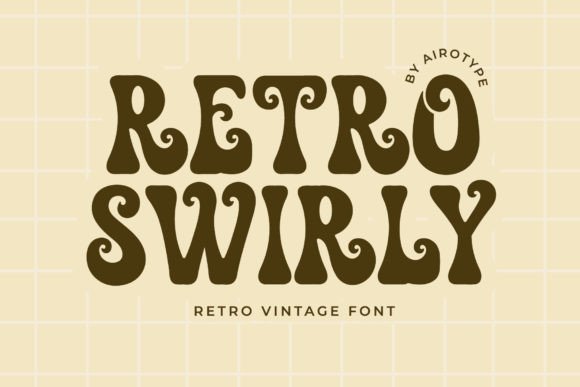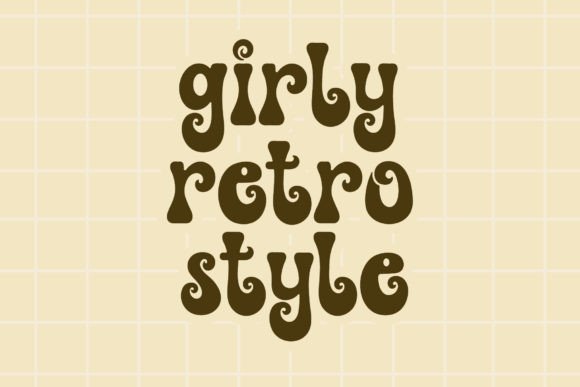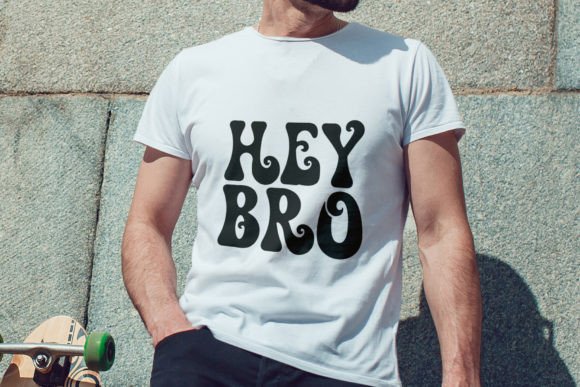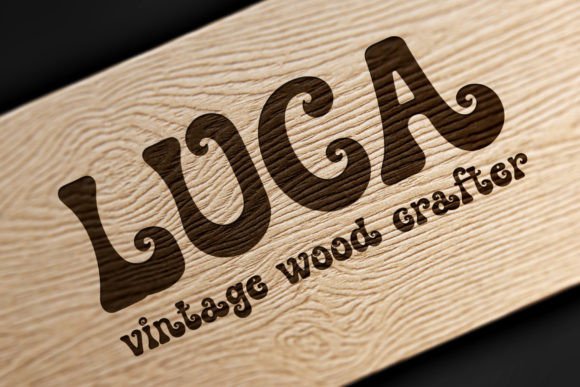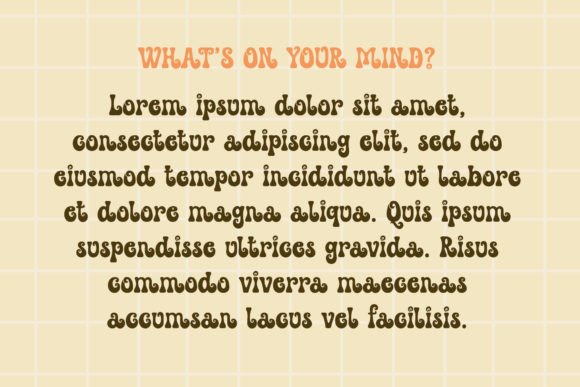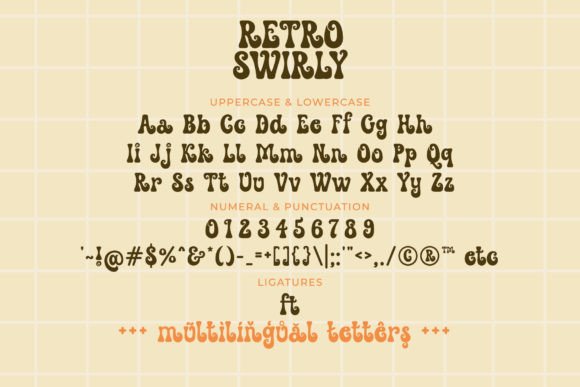
Retro Swirly Font
Retro Swirly is an elegant vintage font. It represents the 70s style with a modern touch with its swirl. It is bold, groovy, and bubbly.
Retro Swirly is a beautiful font for any project with elegant and retro vintage style, such as logos, crafting, t-shirts, branding, stickers, sublimation, quotes, greeting cards, and many more.